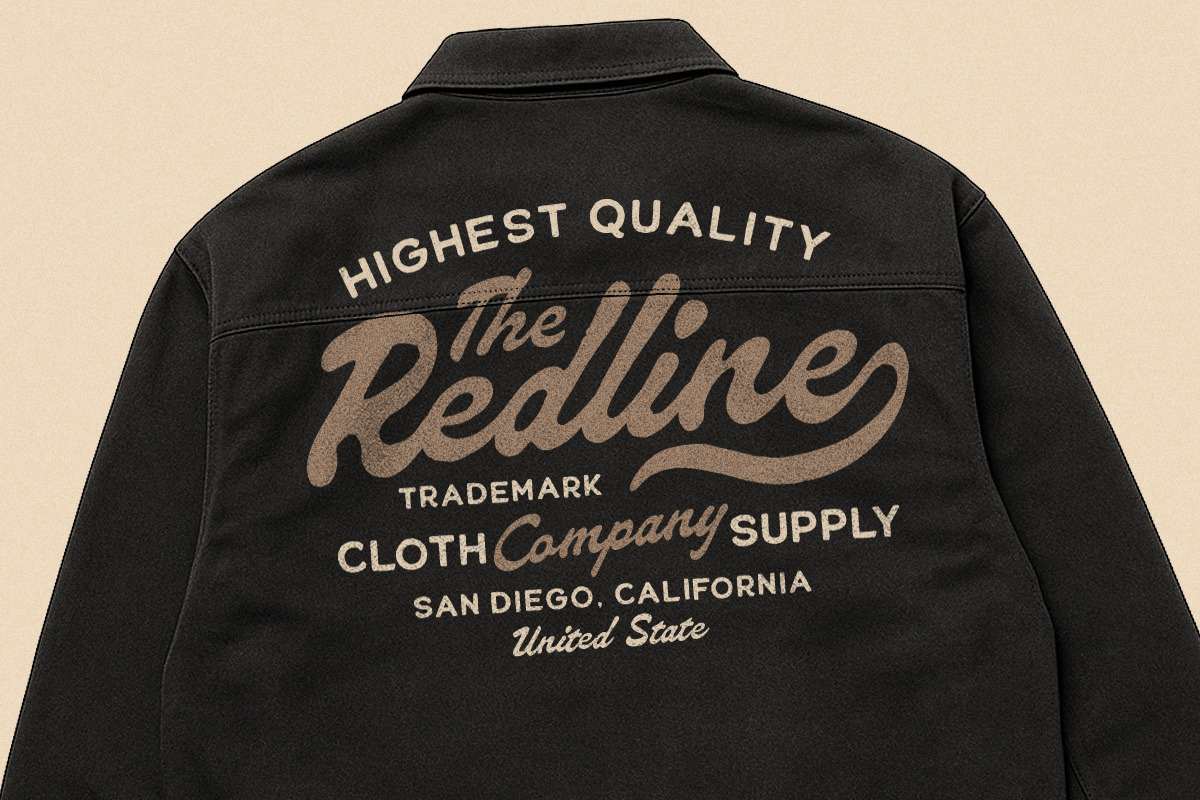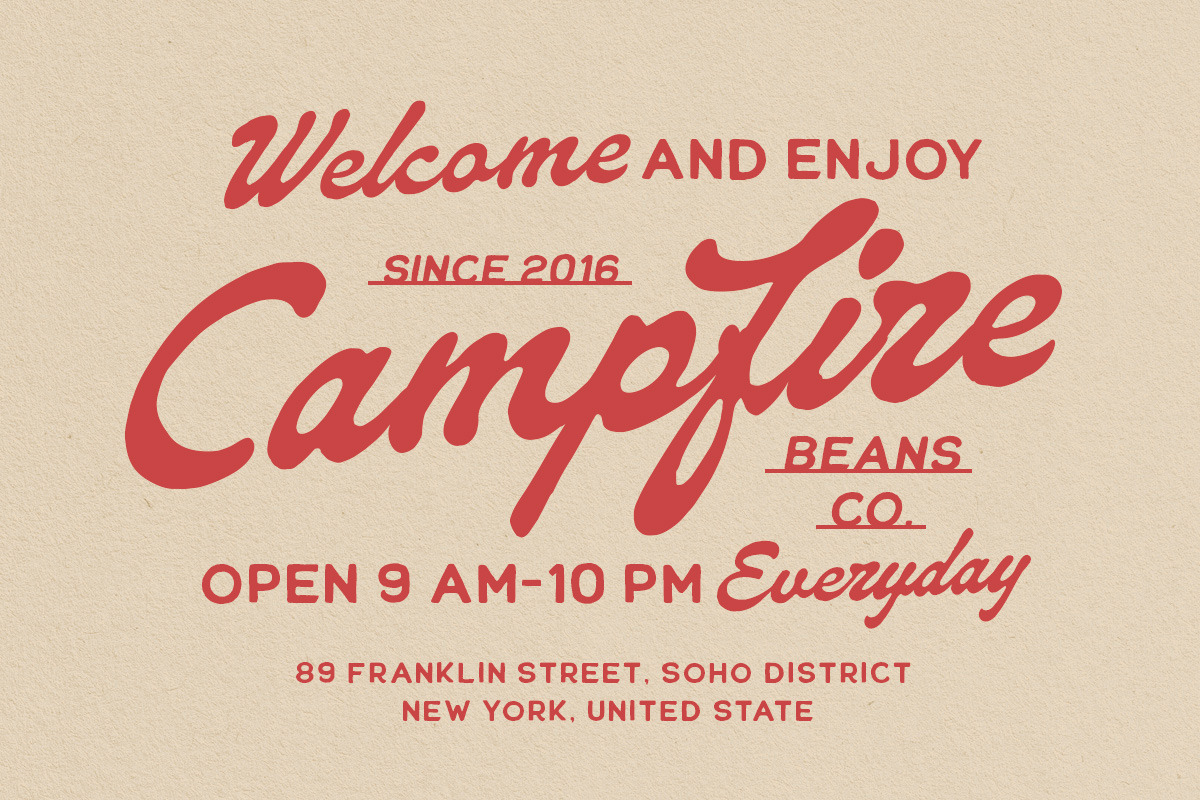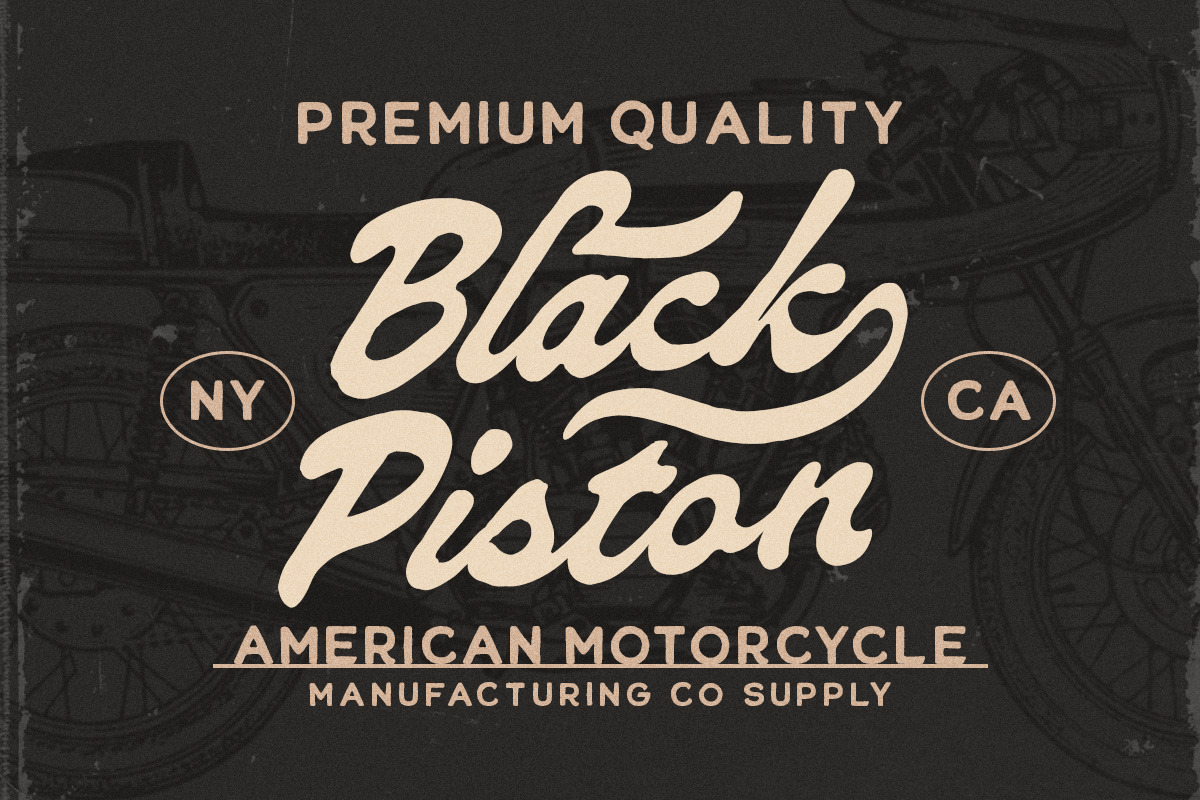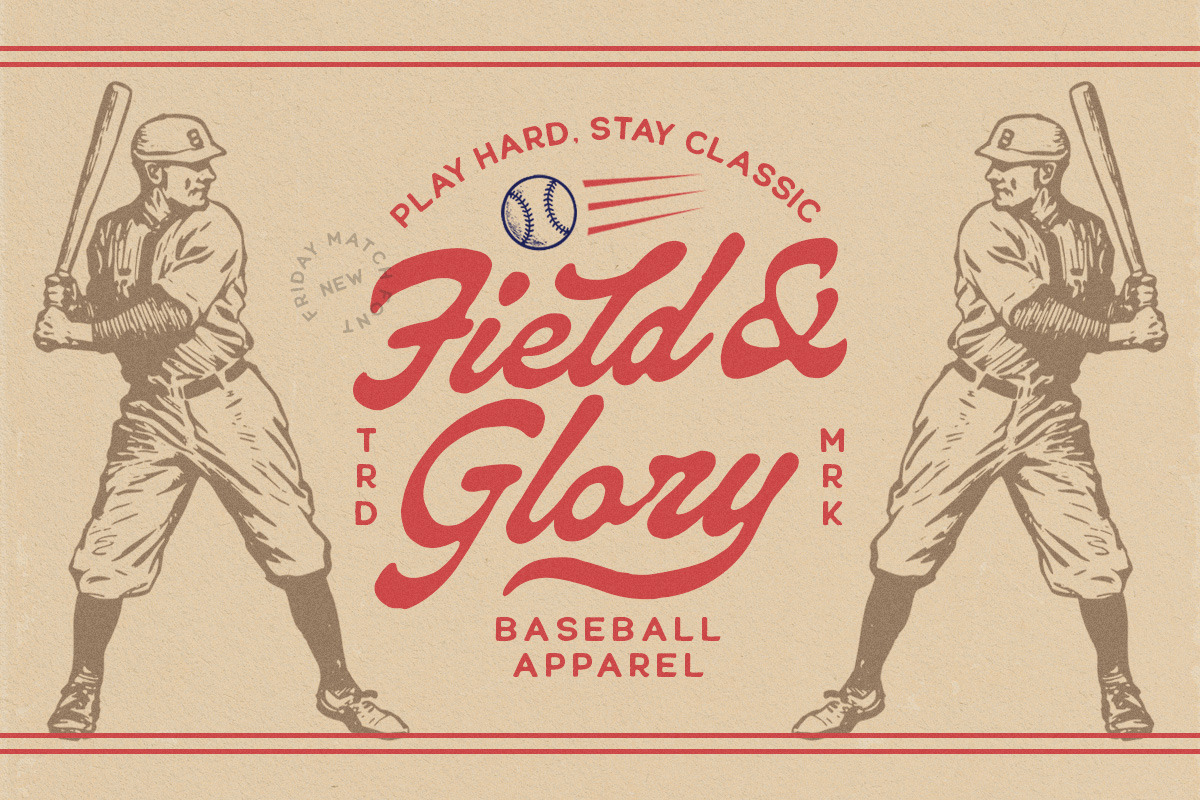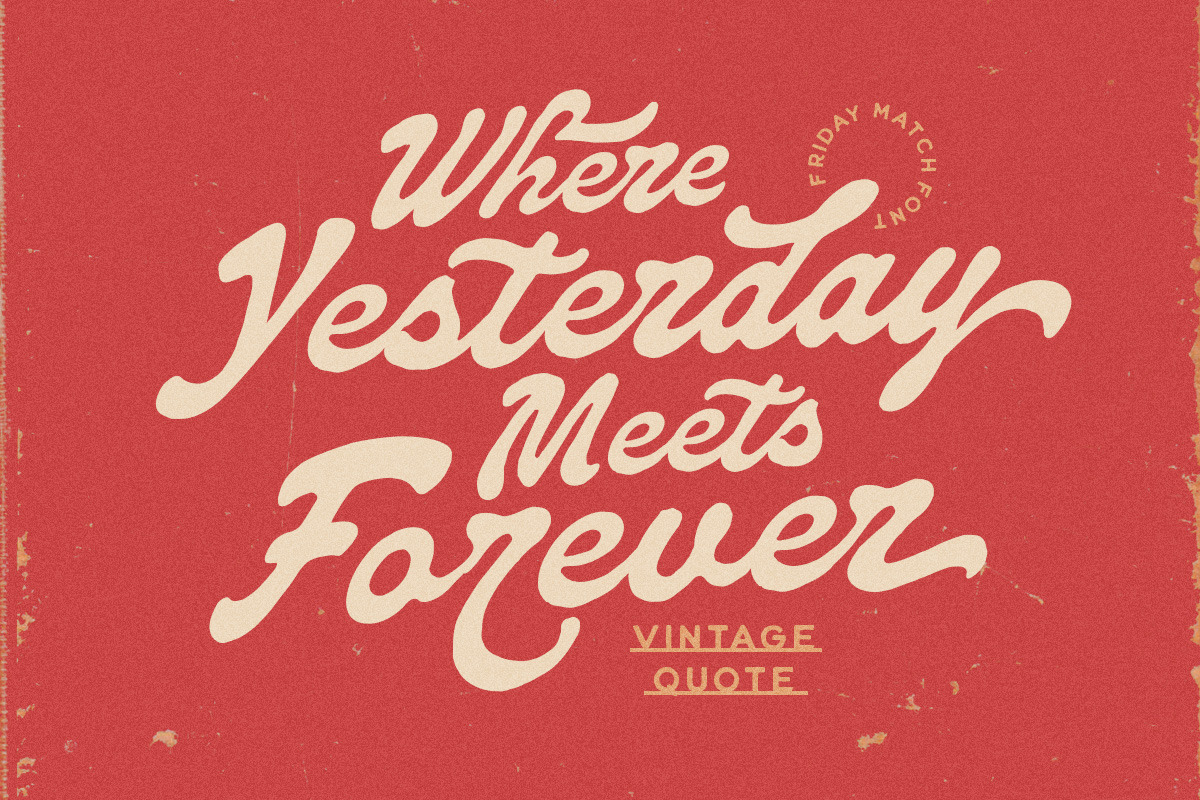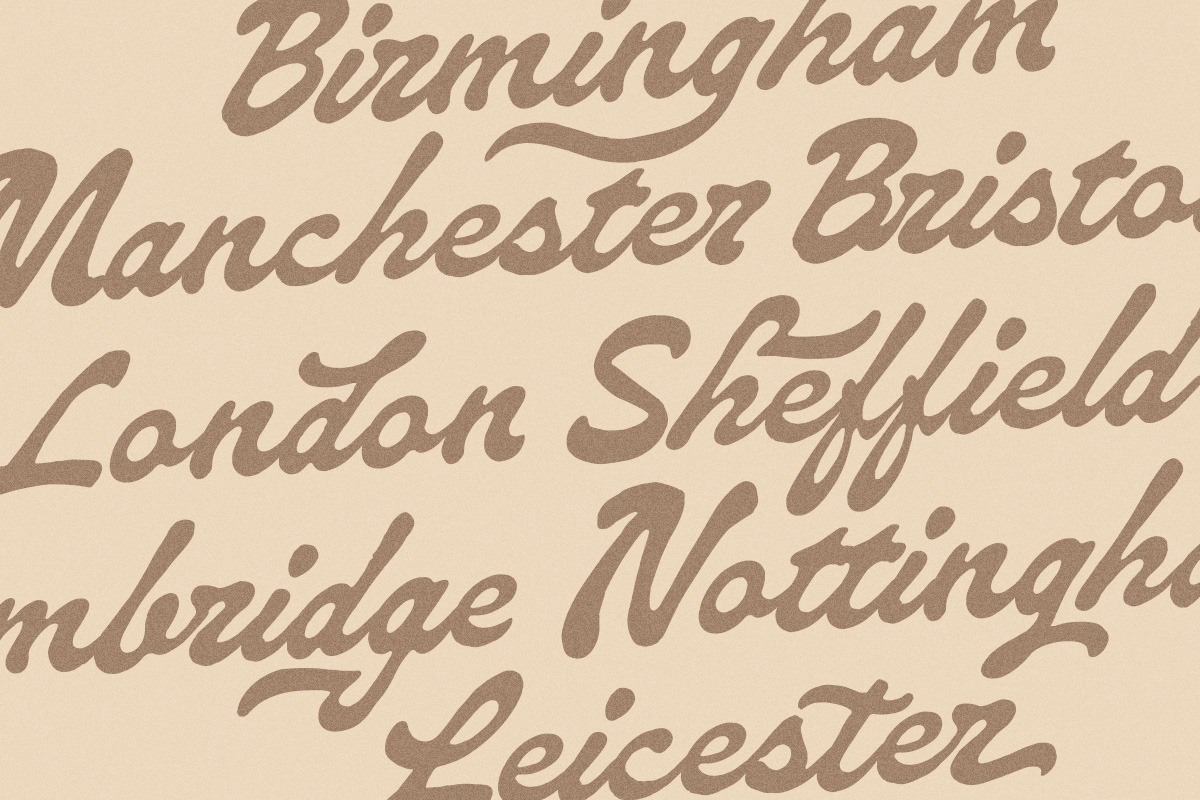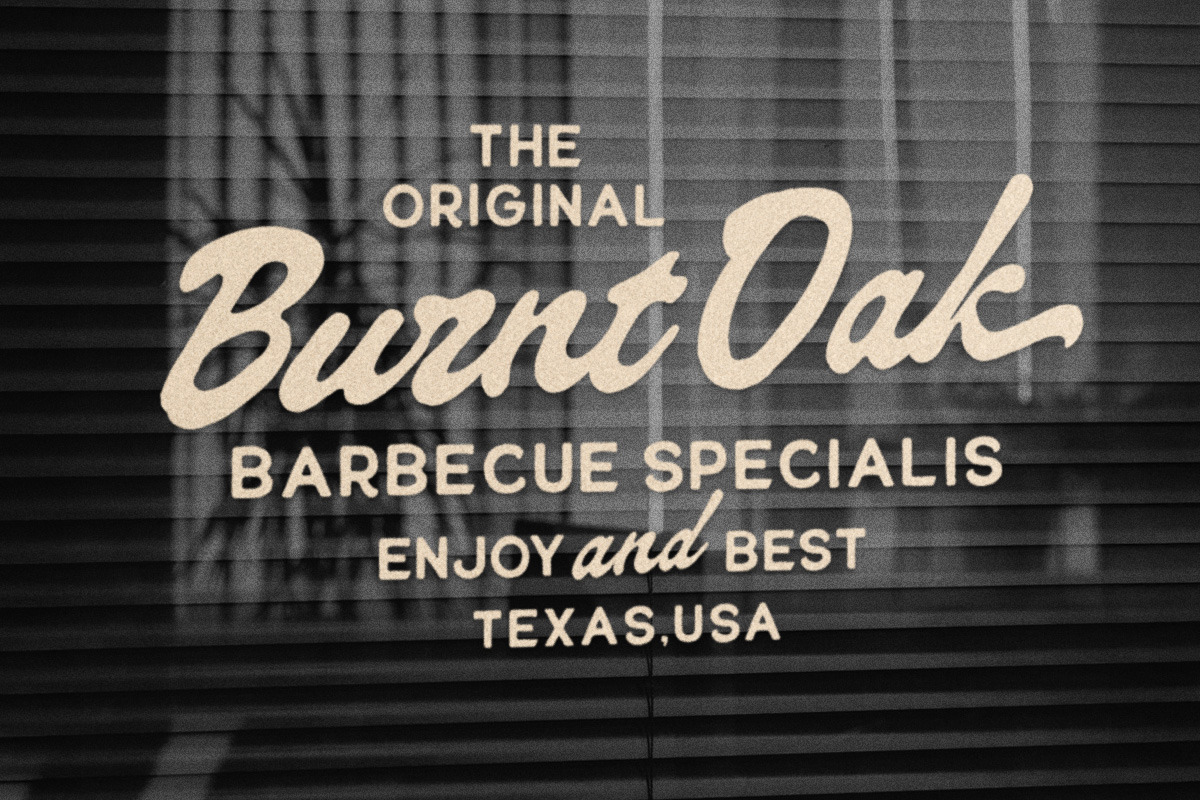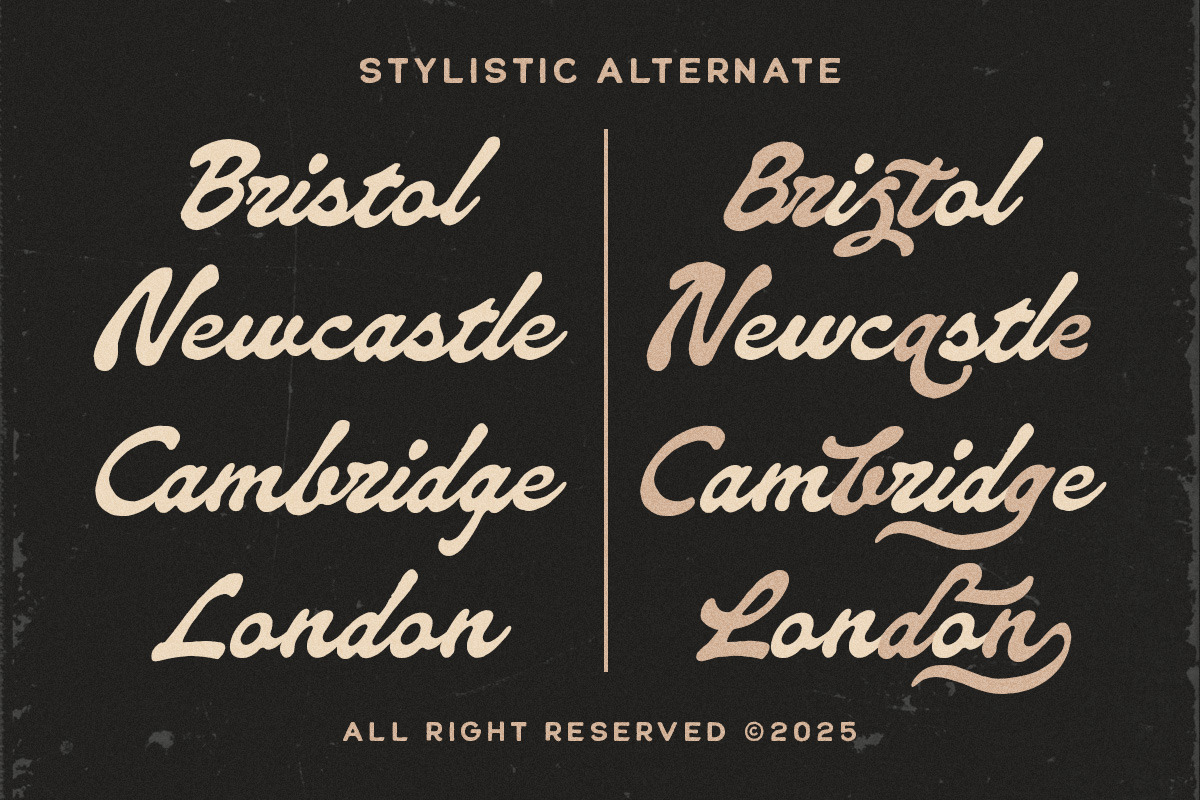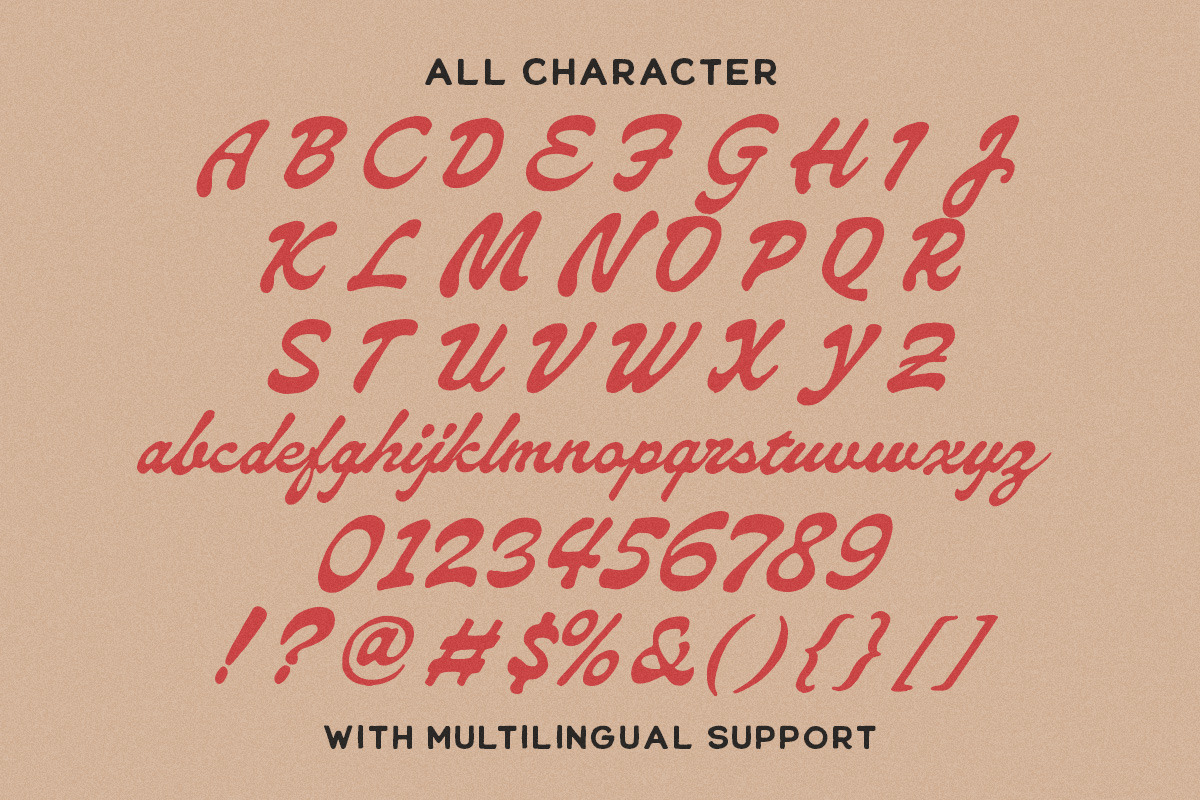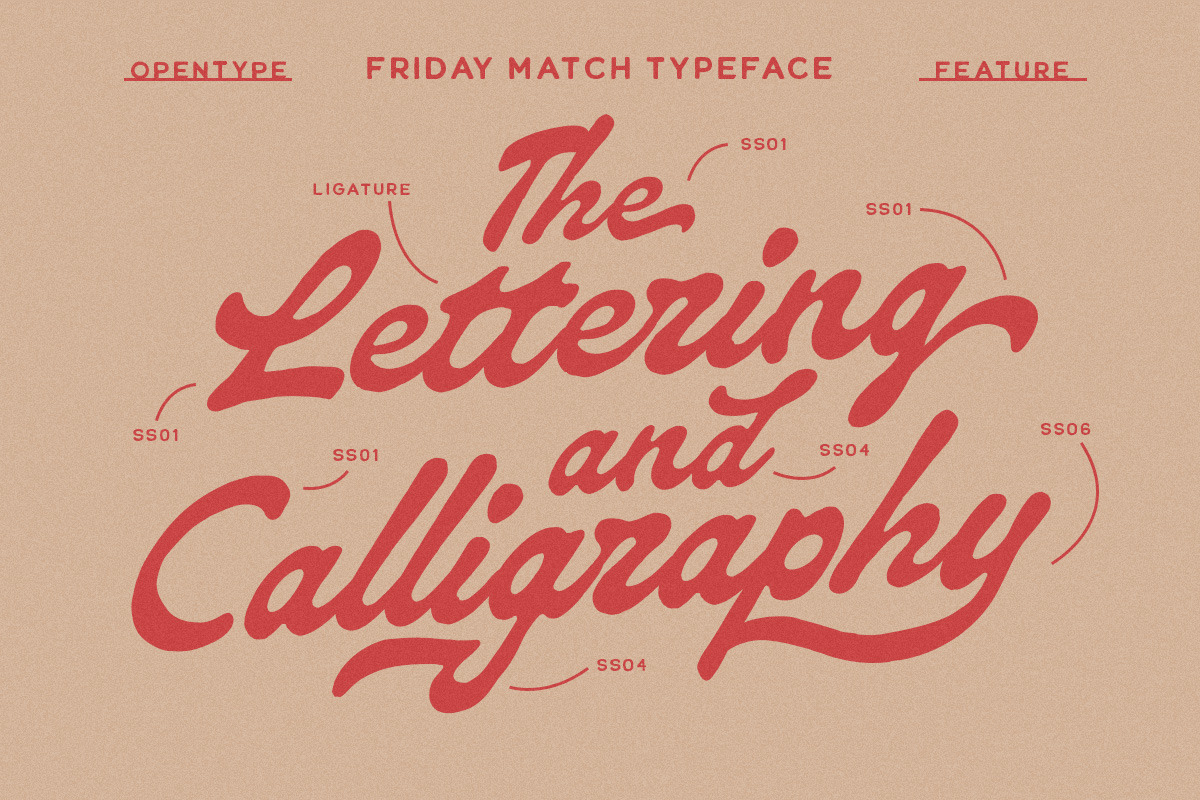
Friday Match Vintage Sporty Script
Friday Match carries a warm, nostalgic energy with its smooth, looping script and bold vintage flair, echoing the charm of classic sports posters and mid-century sign-painting. This font brings a cool, playful swagger to any project, delivering that old-school match-day excitement with modern polish—ideal for branding, posters, packaging, and anything that needs a stylish retro punch.